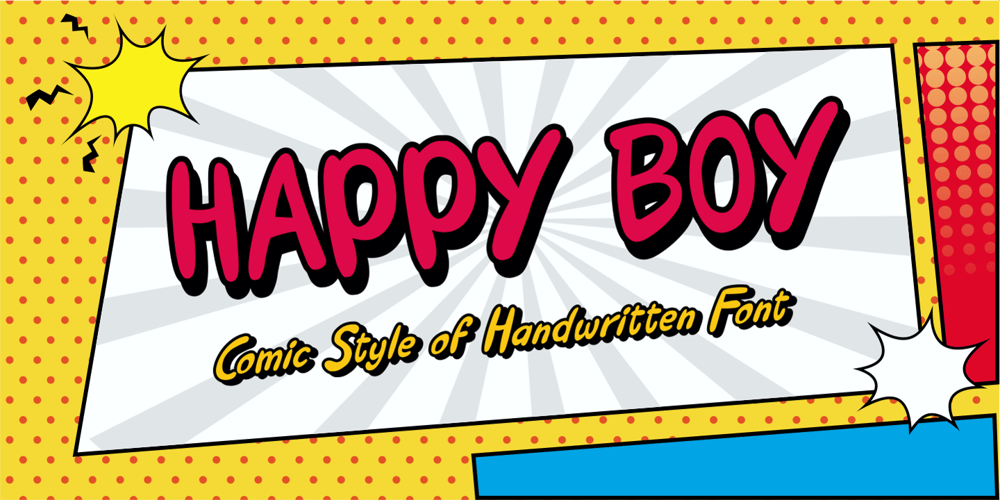
Happy Boy
Happy Boy font
Happy Boy Font Family was designed by Muhammad Nazarudin and published by Niznaztype. Happy Boy contains 4 styles and family package options. Happy Boy is a handwritten sans typeface that has a rounded corner in each glyph. Inspired from speech bubble for comics, illustrations and kid writing.Happy Boy is perfect for comics, illustrations, cartoons and very suitable for speech bubble text. It is fun, easy communication and an eye catching style. You can use it for cover book, tagline, poster, branding, advertising, wallpainting letter, graphic design, and more.Happy Boy comes in 4 styles, regular, italic, bold and bold italic.